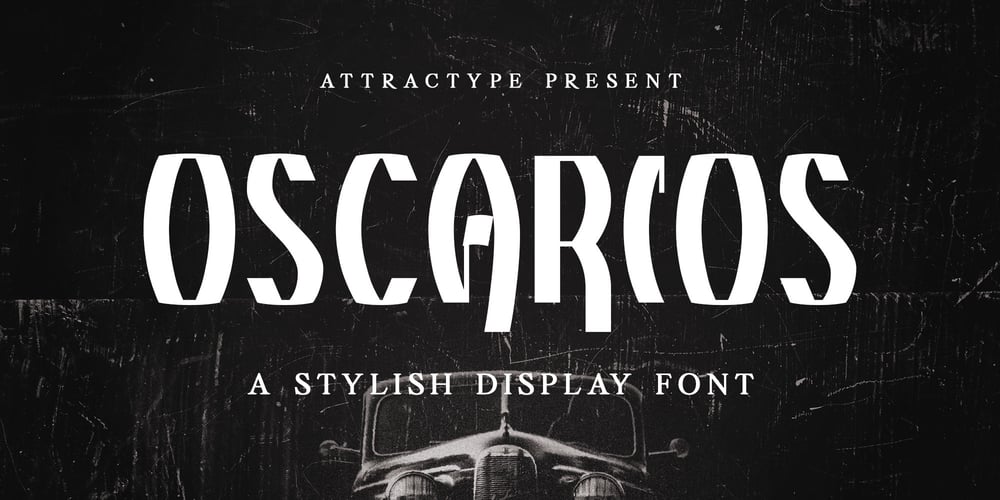
Oscarios Font Family was designed by Saefulloh and published by Attractype. Oscarios contains 1 styles and family package options. Oscarios fonts is a stylish display font. You can use it in a modern, clean and professional design. This font is perfect for your various projects such as brand identity, technology, business cards, web, stationery, displays, sports and more.Oscarios font contains uppercase, lowercase, numbers, punctuation and multilingual support.